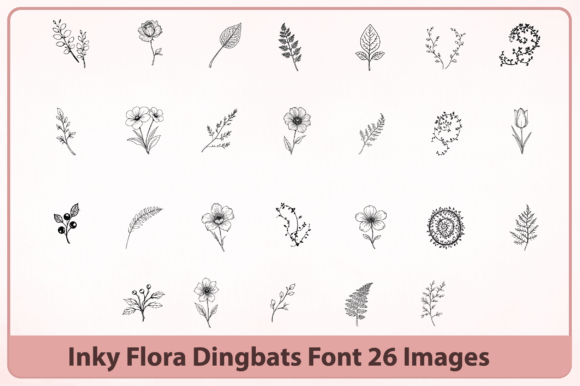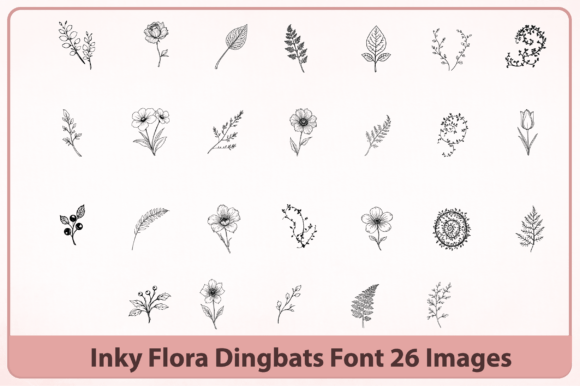
Introduction to Inky Flora Font
Have you ever stared at a beautiful leaf or a delicate flower, and felt inspired to create something just as unique and breathtaking? For designers, moments like these can be the spark that ignites a creative project. And what better way to capture that organic, free-spirited essence than with the enchanting Inky Flora Font?
This handcrafted font is a true gem for designers seeking high-quality design resources that exude natural charm. With its transparent background and organic shapes, Inky Flora Font is the perfect addition to any bohemian design, organic branding, or creative project that requires a touch of handmade love.
Key Features of Inky Flora Font
- High-quality design resource suitable for creative projects, including illustrations, graphics, and typography.
- Features a unique, hand-drawn style with intricate details and textures, perfect for adding a personal touch to designs.
- Comes with a transparent background, allowing for seamless integration into various design elements and backgrounds.
- Designed at a high resolution (300 DPI) for optimal clarity and print-quality results.
- Perfect for use in various design projects, including digital art, print materials, and web design, thanks to its versatility and adaptability.
Honest Review: Inky Flora Font
As a designer, I’m always on the lookout for high-quality design resources to elevate my creative projects. The Inky Flora Font caught my eye with its unique, hand-drawn style and free download option.
What works well: ✨ The font’s transparent background allows for seamless integration into any design, and its high-quality vector format makes it perfect for scaling up or down without losing any details. The font’s whimsical feel also lends itself well to creative projects that require a touch of personality.
Here are some key features I love about the Inky Flora Font:
- Unique, hand-drawn style that adds a personal touch to any design
- Transparent background for easy integration into any design
- High-quality vector format for scalable designs
Overall, I’m impressed with the Inky Flora Font’s unique style and high-quality design. It’s a great addition to any designer’s toolkit, and I’d definitely recommend it for creative projects that require a touch of personality.
Inky Flora Font is a high-quality, free download design resource ideal for creative projects requiring a unique, elegant touch. With a transparent background, this font is versatile and can be used across various design platforms.
Inky Flora Font is ideal for use in wedding invitations, branding materials, and other design projects requiring a touch of elegance and sophistication.